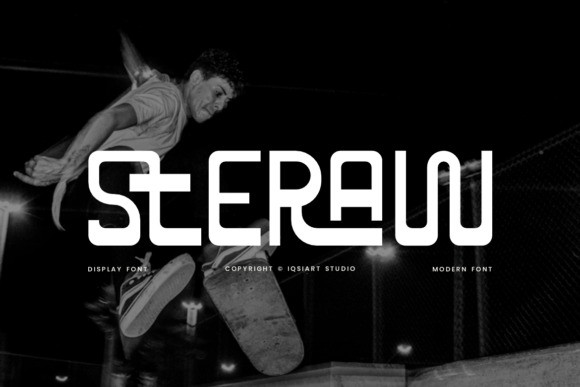
Steraw Font
Steraw Font a cutting-edge display font designed for those who play by their own rules. Its distinctive liquid-industrial style features unique ligatures and sweeping curves that lead the eye, making it the perfect choice for high-impact branding, streetwear apparel, sports graphics, and futuristic poster designs. Whether you’re designing for a lifestyle brand or a digital campaign, Stera delivers a “modern-retro” vibe that feels both nostalgic and ahead of its time.